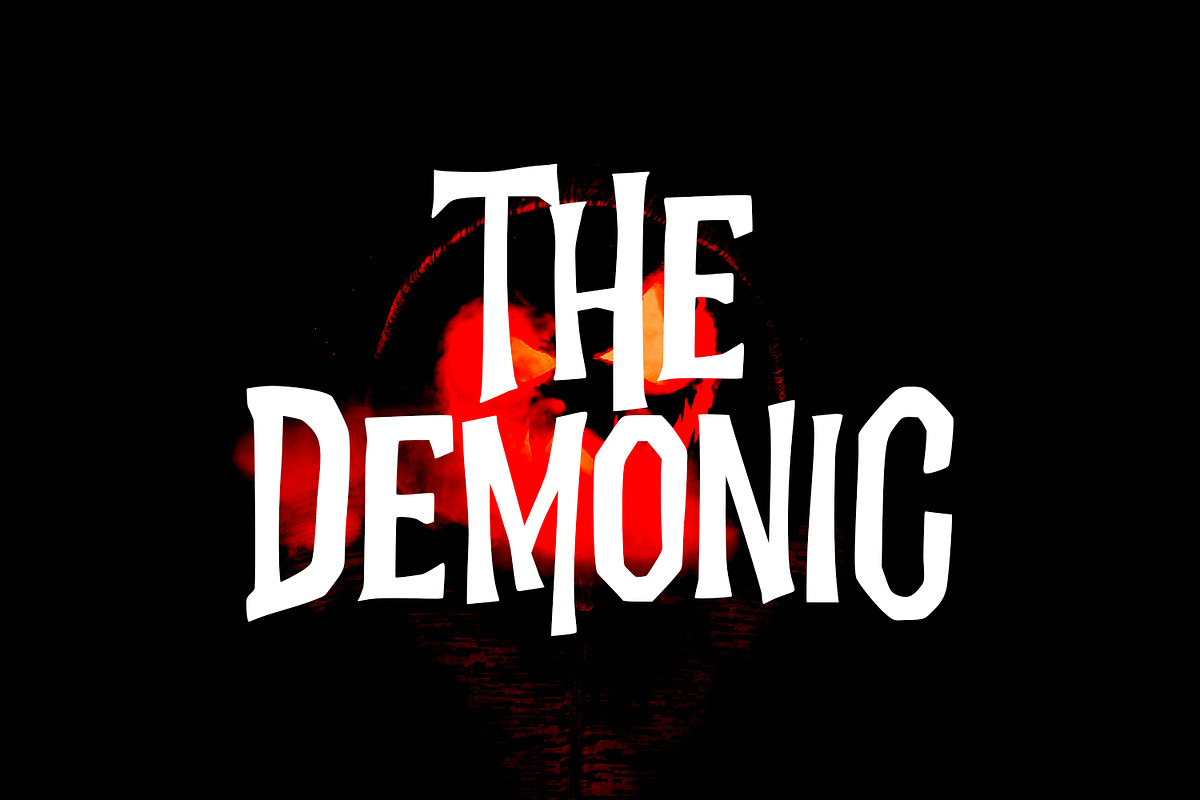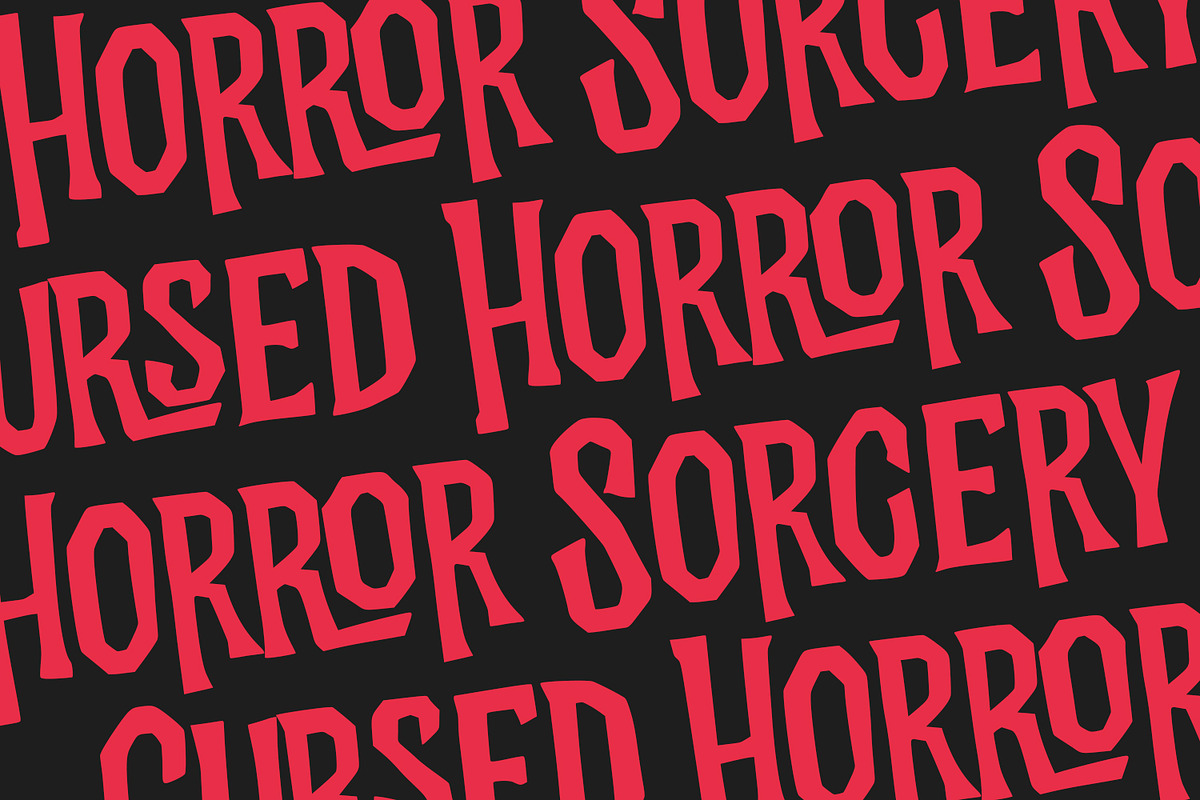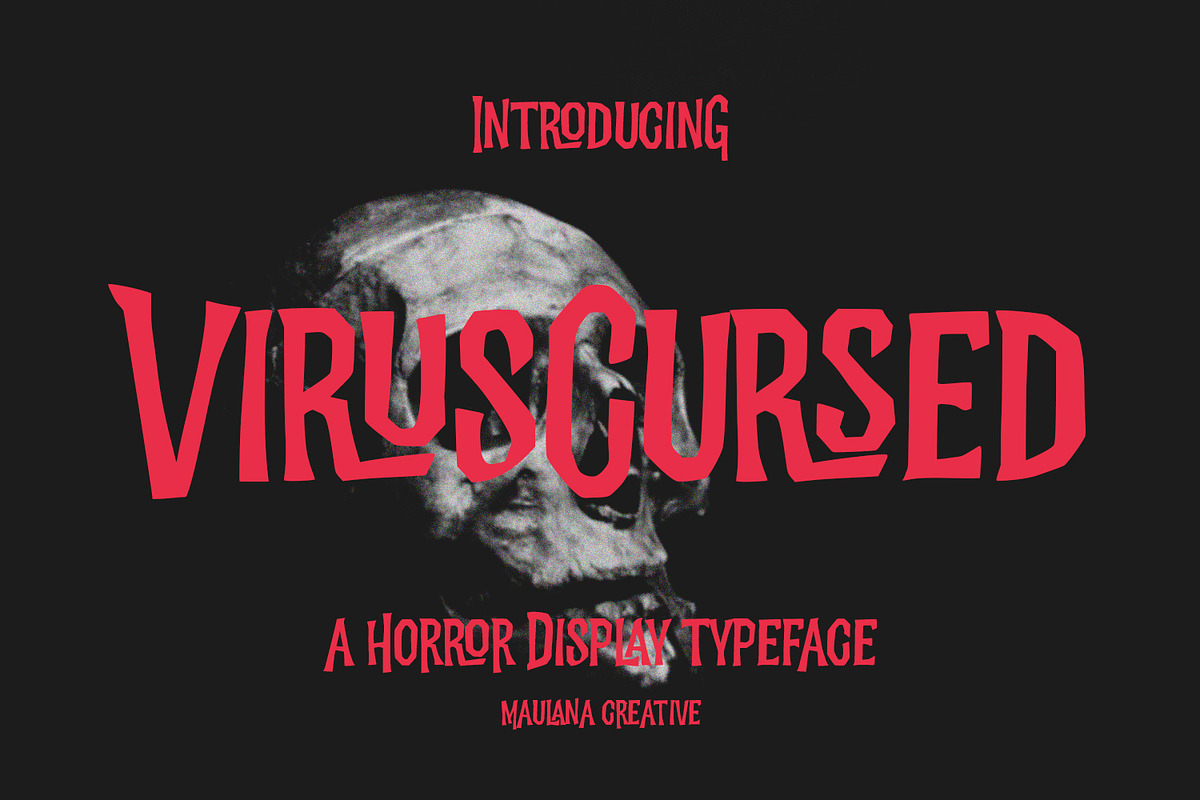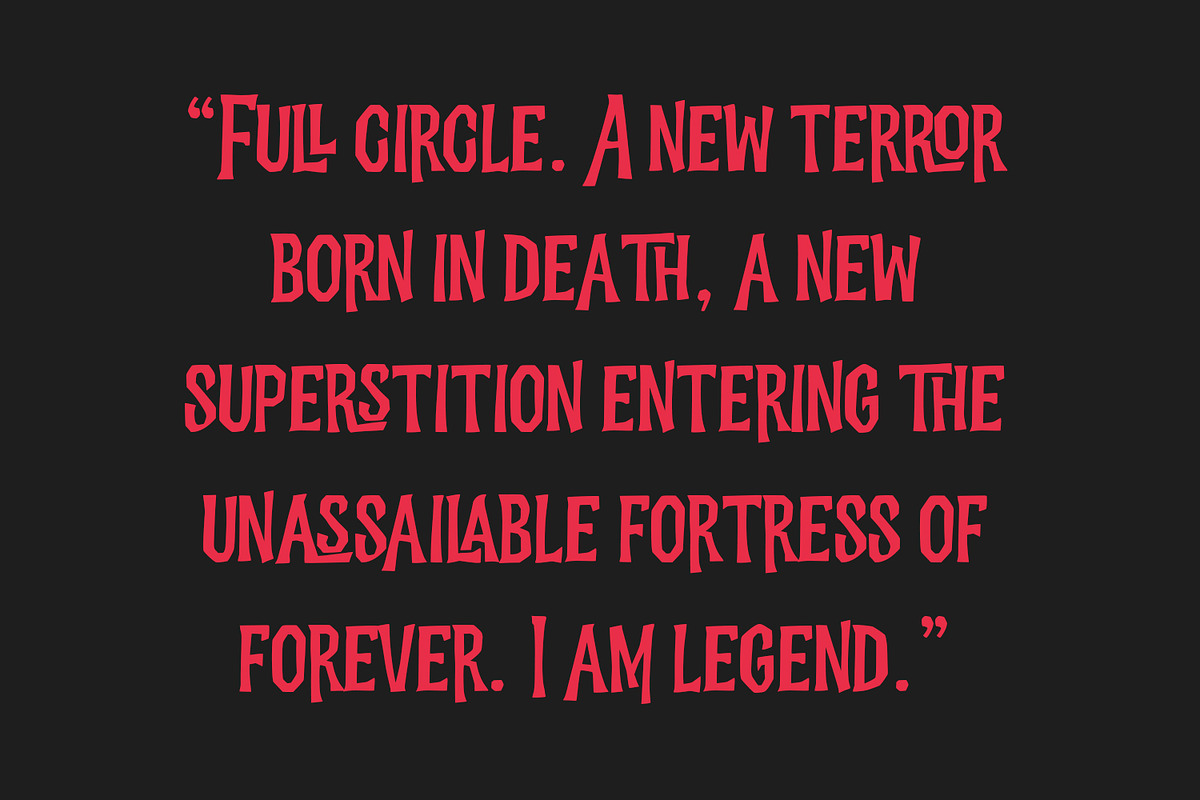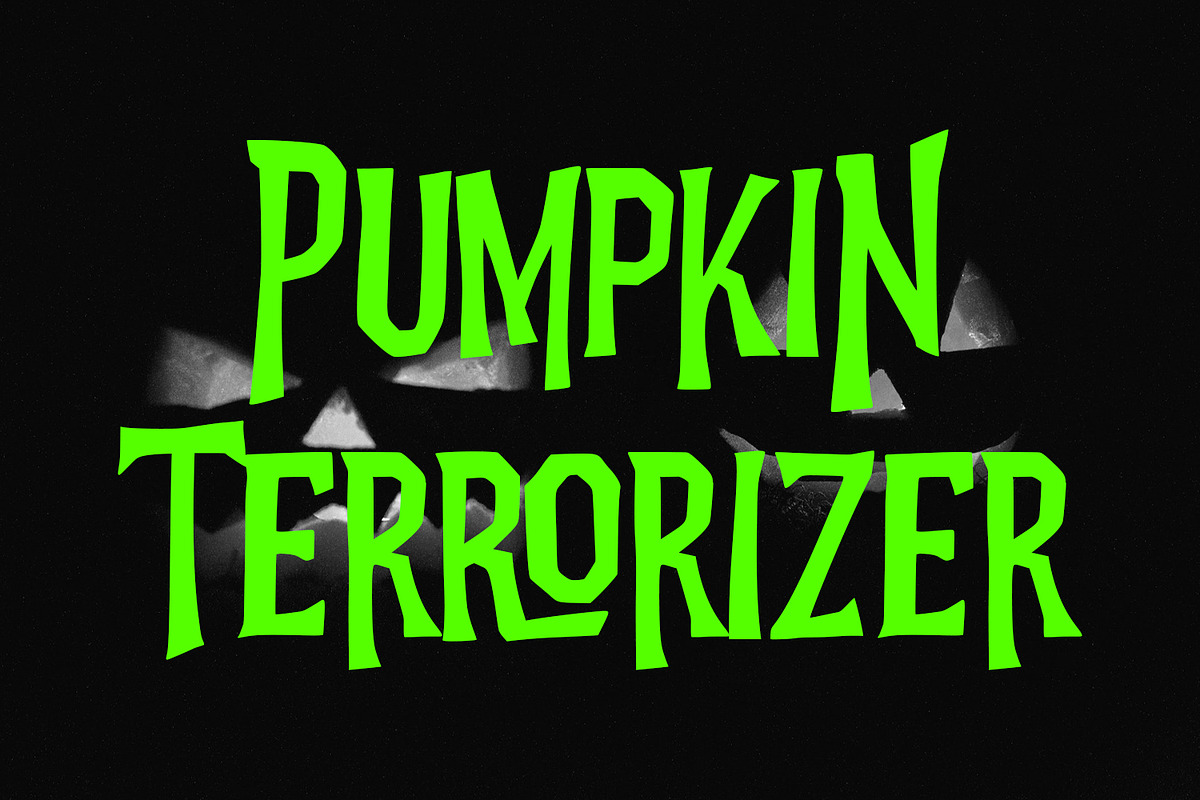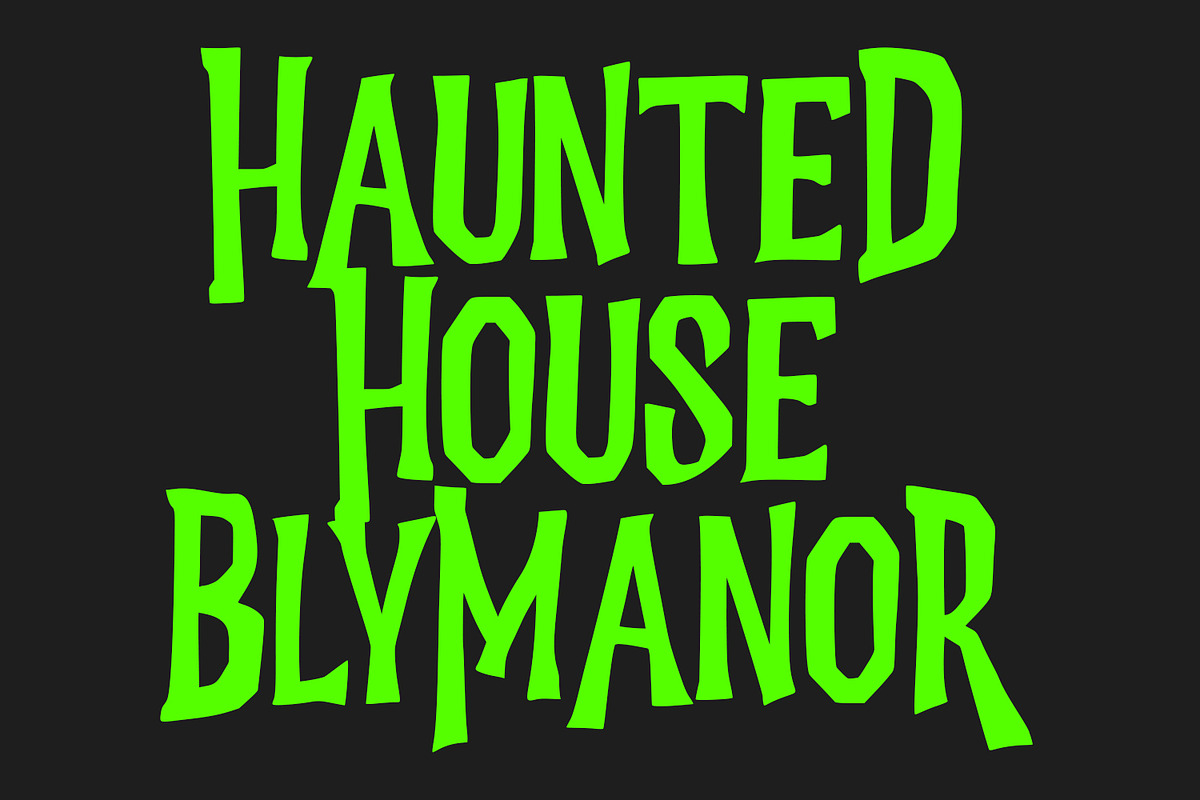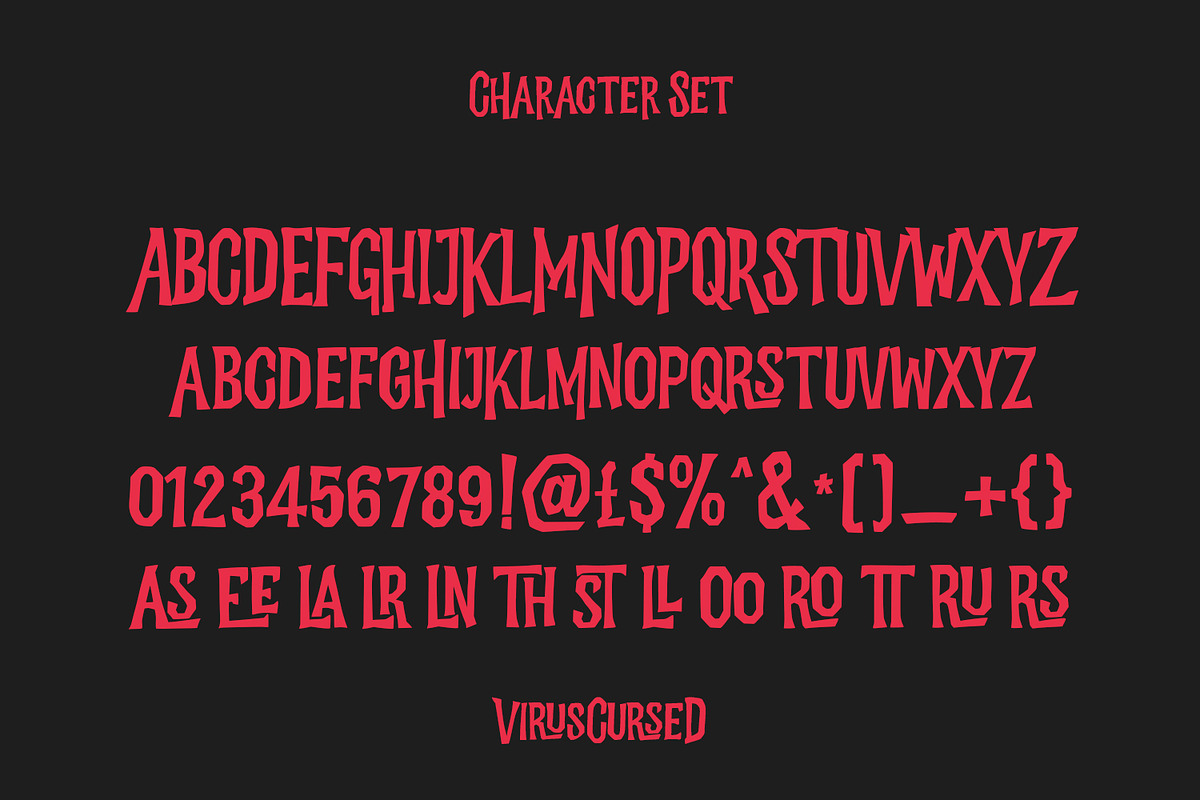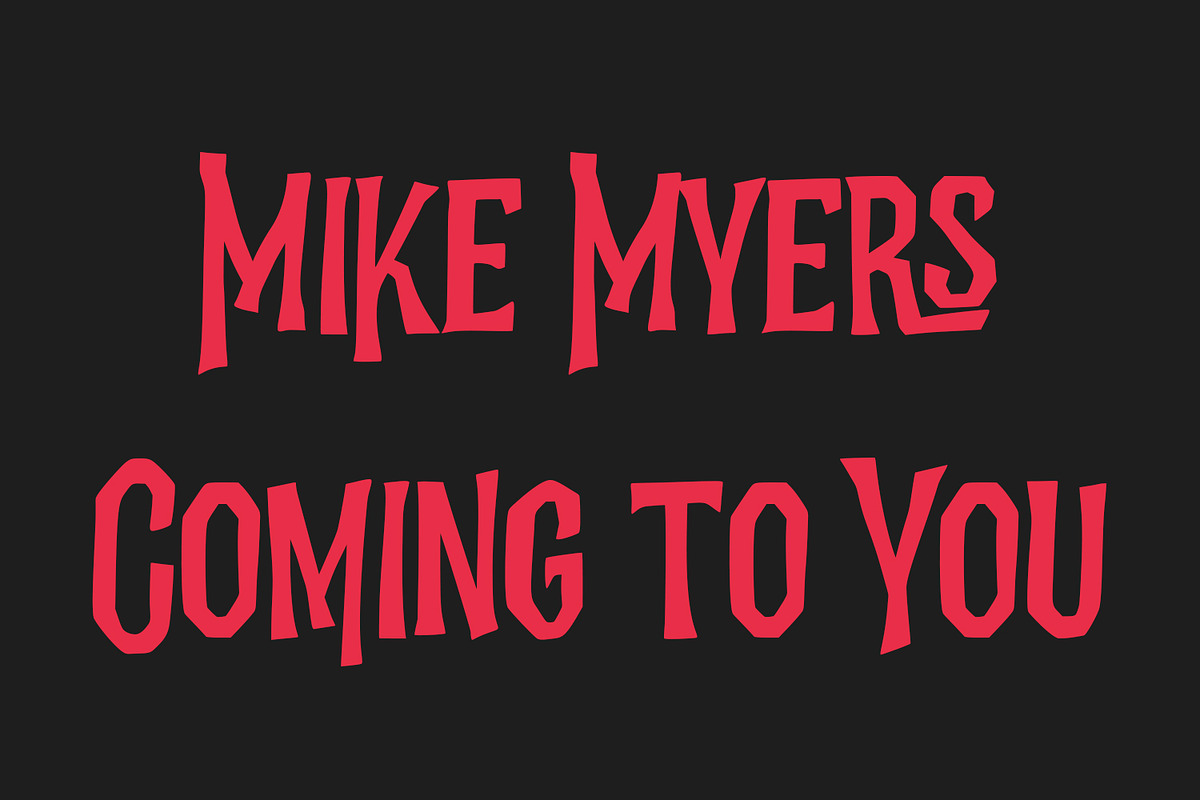
Virus Cursed Halloween Sans Vintage
Virus Cursed is a Horror Vibe Decorative display font. With Bold Sharp stroke, Upright and fun character with a bit of ligatures. To give you an extra creative work. Virus Cursed font support multilingual more than 100+ language. This font is good for logo design, Social media, Movie Titles, Books Titles, a short text even a long text letter and good for your secondary text font with Script. Make a stunning work with Virus Cursed font.